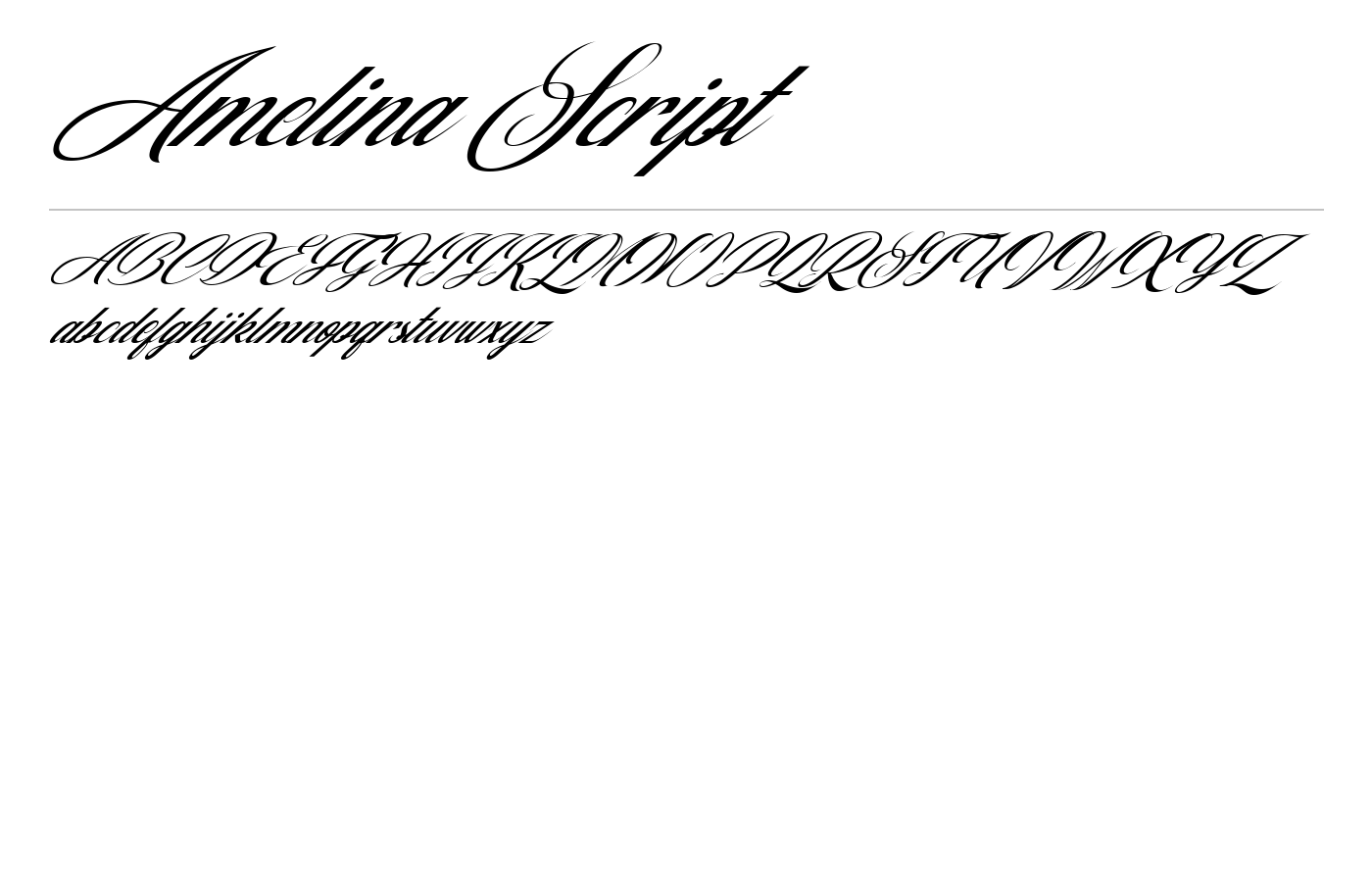
Amelina Script is an elegant and refined script font characterized by its graceful, flowing strokes and high contrast between thick and thin lines. It features delicate, sharp letterforms with a stylish, calligraphic feel that conveys sophistication and luxury. Ideal for wedding invitations, branding, and high-end editorial design, this font adds a classic, romantic touch to any project.
Amelina Script Font
About Amelina Script Font
| Font family | Amelina Script Font |
| Designer | Tojanna Creative |